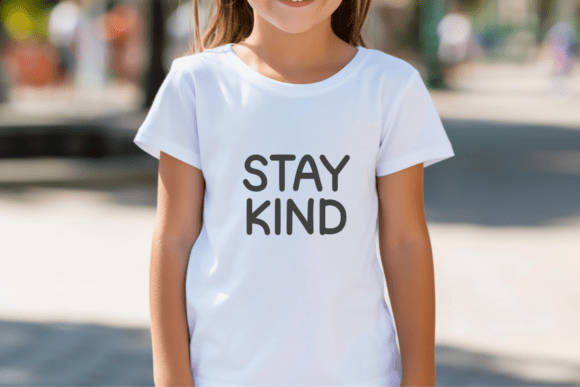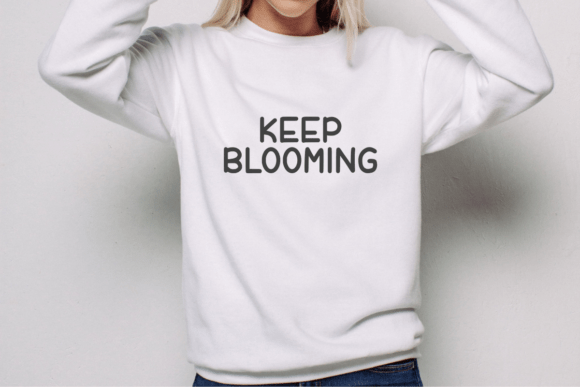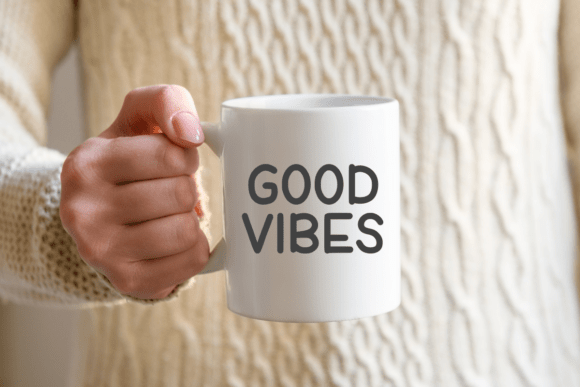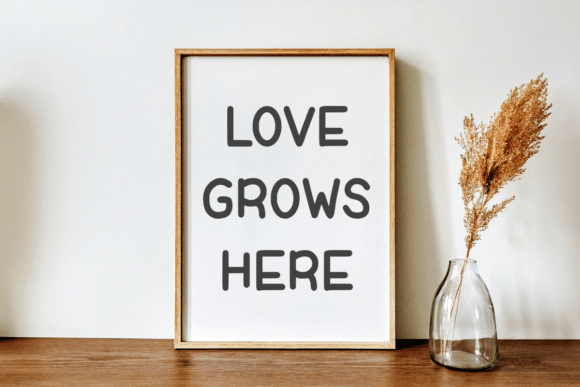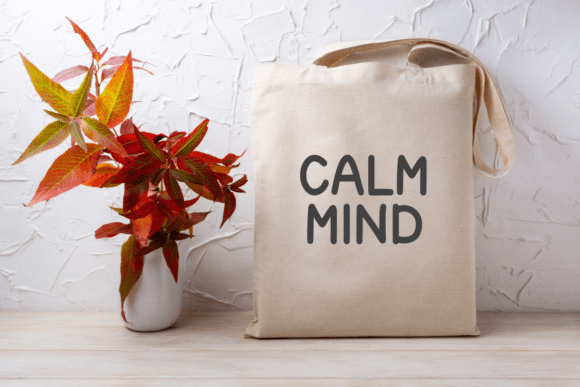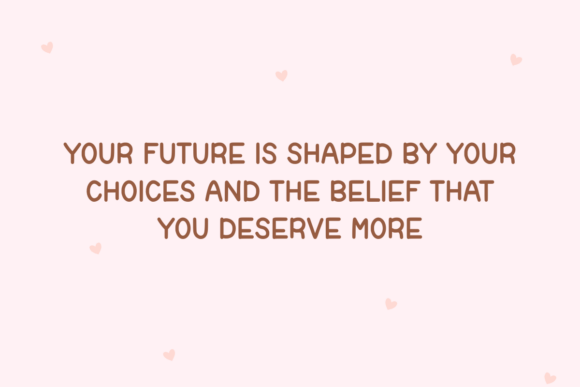
Introducing Angel Topper Font: The Perfect Handwritten Companion for Designers and Crafters
Are you on the hunt for a font that adds a dash of sass and sarcasm to your designs? Look no further than the Angel Topper Font! Inspired by natural handwriting, this beautiful handwritten font is perfect for a wide range of creative projects. Its rounded and friendly look makes it an excellent choice for designers and crafters who want to add a fun and adorable touch to their work.
What Makes Angel Topper Font So Special?
Angel Topper Font is a unique and versatile font that is designed to bring a personal touch to your designs. Its handwritten style is reminiscent of natural handwriting, making it perfect for projects that require a human touch. The font’s rounded and friendly look is sure to capture the attention of your audience and leave a lasting impression.
Perfect for Journals, Planners, and Notes
One of the best things about Angel Topper Font is its versatility. It’s perfect for use in journals, planners, notes, and sticky notes. Whether you’re creating a personal planner or a journal for your customers, this font is sure to add a touch of personality to your designs. Its friendly and approachable style makes it easy to read and understand, making it perfect for everyday use.
KDP Interiors and Canva Templates
Angel Topper Font is also a great choice for KDP interiors and Canva templates. Its unique style is sure to make your designs stand out from the crowd, and its versatility makes it easy to use in a wide range of projects. Whether you’re creating a cookbook, a travel guide, or a social media template, this font is sure to add a touch of personality to your designs.
Birthday and Baby Shower Designs
Angel Topper Font is also perfect for birthday and baby shower designs. Its playful and fun style is sure to add a touch of excitement to your designs, and its versatility makes it easy to use in a wide range of projects. Whether you’re creating a birthday card, a baby shower invitation, or a congratulations banner, this font is sure to make your designs stand out.
Greeting Cards, Stickers, and Diaries
Angel Topper Font is also a great choice for greeting cards, stickers, and diaries. Its friendly and approachable style makes it perfect for everyday use, and its versatility makes it easy to use in a wide range of projects. Whether you’re creating a greeting card for a friend, a sticker for a laptop, or a diary for a customer, this font is sure to add a touch of personality to your designs.
Tumblers, Sublimation Projects, and DIY Crafts
Angel Topper Font is also perfect for use in tumblers, sublimation projects, and DIY crafts. Its unique style is sure to make your designs stand out, and its versatility makes it easy to use in a wide range of projects. Whether you’re creating a custom tumbler, a sublimation project, or a DIY craft, this font is sure to add a touch of personality to your designs.
Why Choose Angel Topper Font?
So why choose Angel Topper Font? Here are just a few reasons why this font is a great choice for designers and crafters:
- Unique and Versatile: Angel Topper Font is a unique and versatile font that is perfect for a wide range of creative projects.
- Handwritten Style: Its handwritten style is reminiscent of natural handwriting, making it perfect for projects that require a human touch.
- Rounded and Friendly Look: Its rounded and friendly look makes it easy to read and understand, making it perfect for everyday use.
- Perfect for Designers and Crafters: Angel Topper Font is perfect for designers and crafters who want to add a touch of personality to their designs.
In conclusion, Angel Topper Font is a beautiful and versatile handwritten font that is perfect for a wide range of creative projects. Its unique style, rounded and friendly look, and versatility make it a great choice for designers and crafters who want to add a touch of personality to their designs. Whether you’re creating journals, planners, notes, greeting cards, stickers, diaries, tumblers, sublimation projects, or DIY crafts, Angel Topper Font is sure to make your designs stand out.